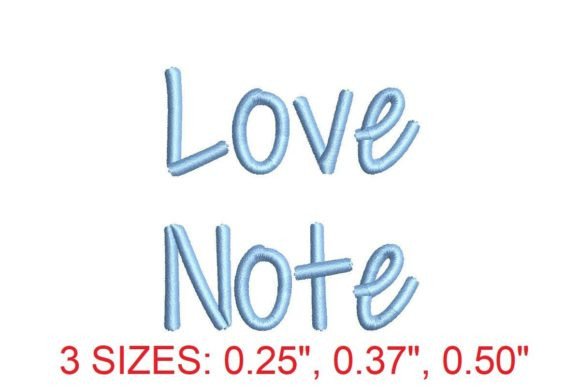
Love Note Embroidery Font
Finding the right design elements can be challenging, but Love Note Embroidery Font offers an exceptional collection that elevates your work instantly.